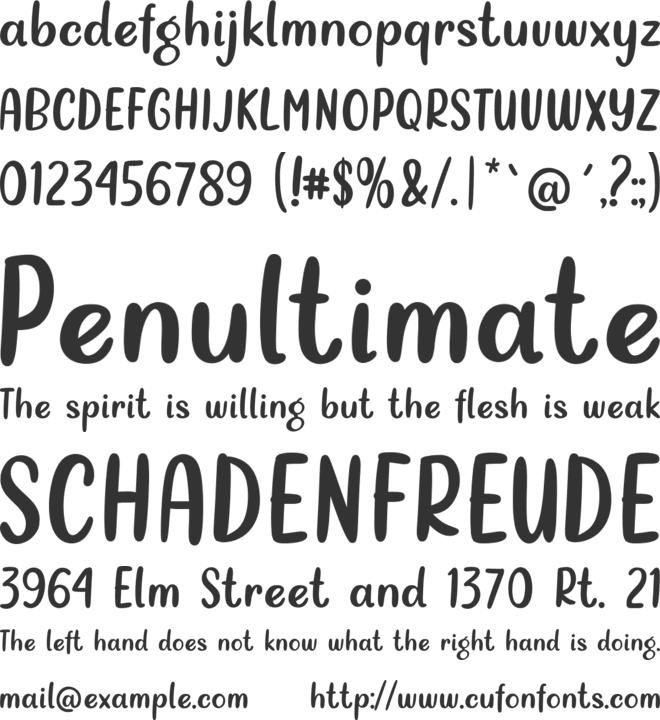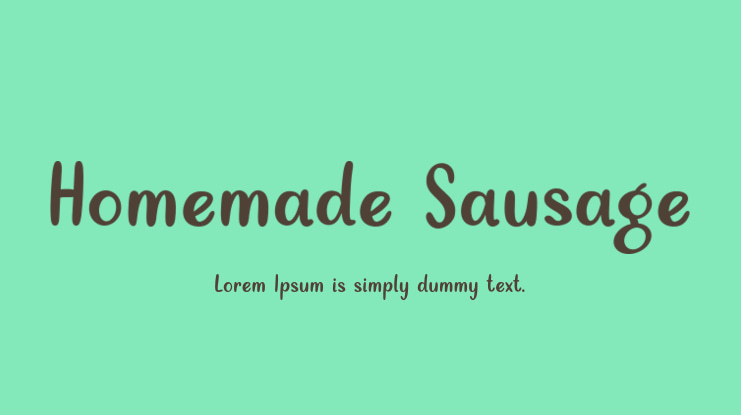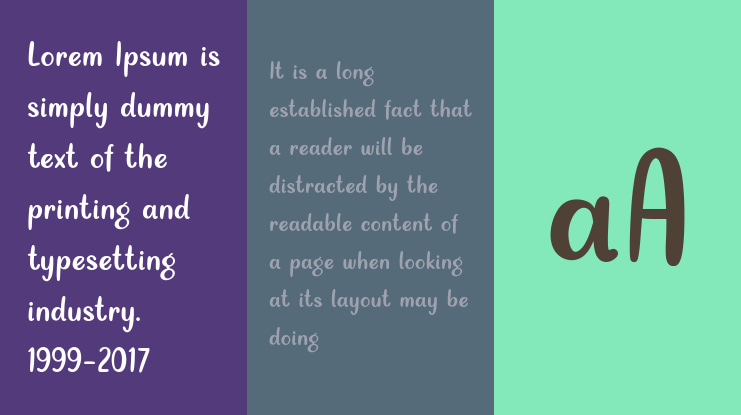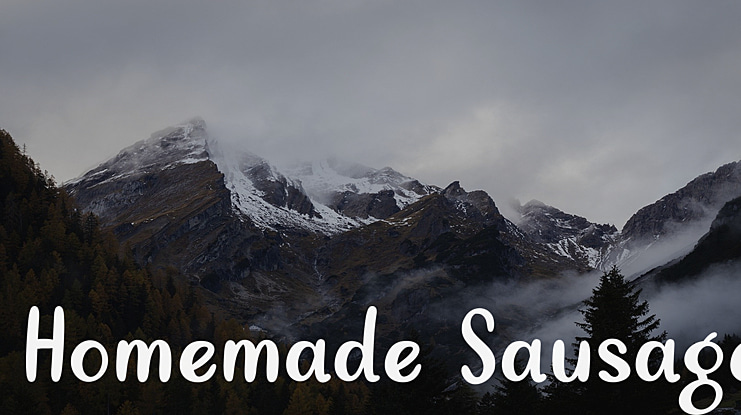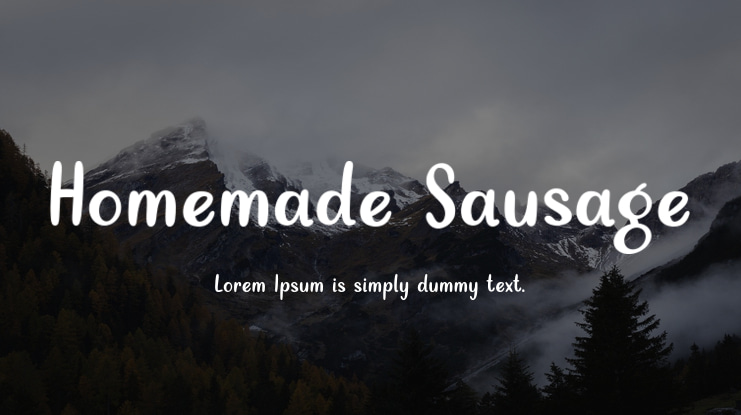
Homemade Sausage Font
deedeetype
Homemade Sausage is a unique and interesting display font. Incredibly versatile, this font will fit a wide pool of designs.
Fall in love with its incredibly stylish look and use it to create spectacular designs!